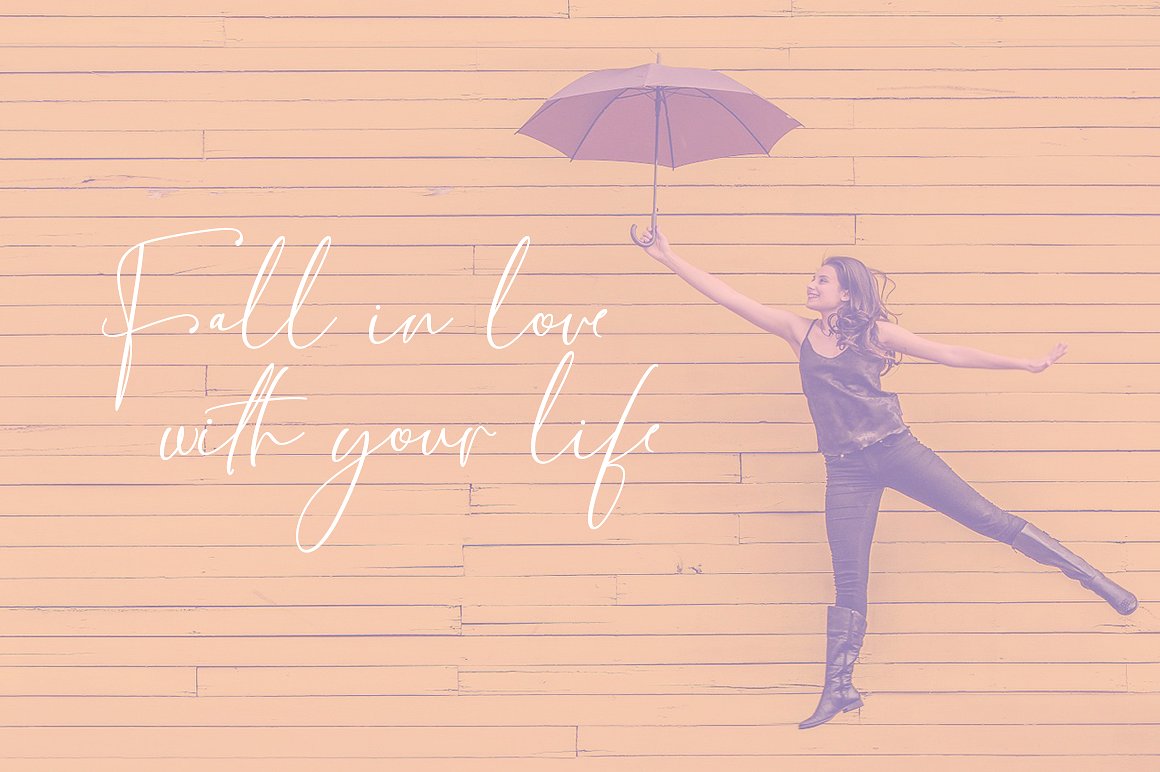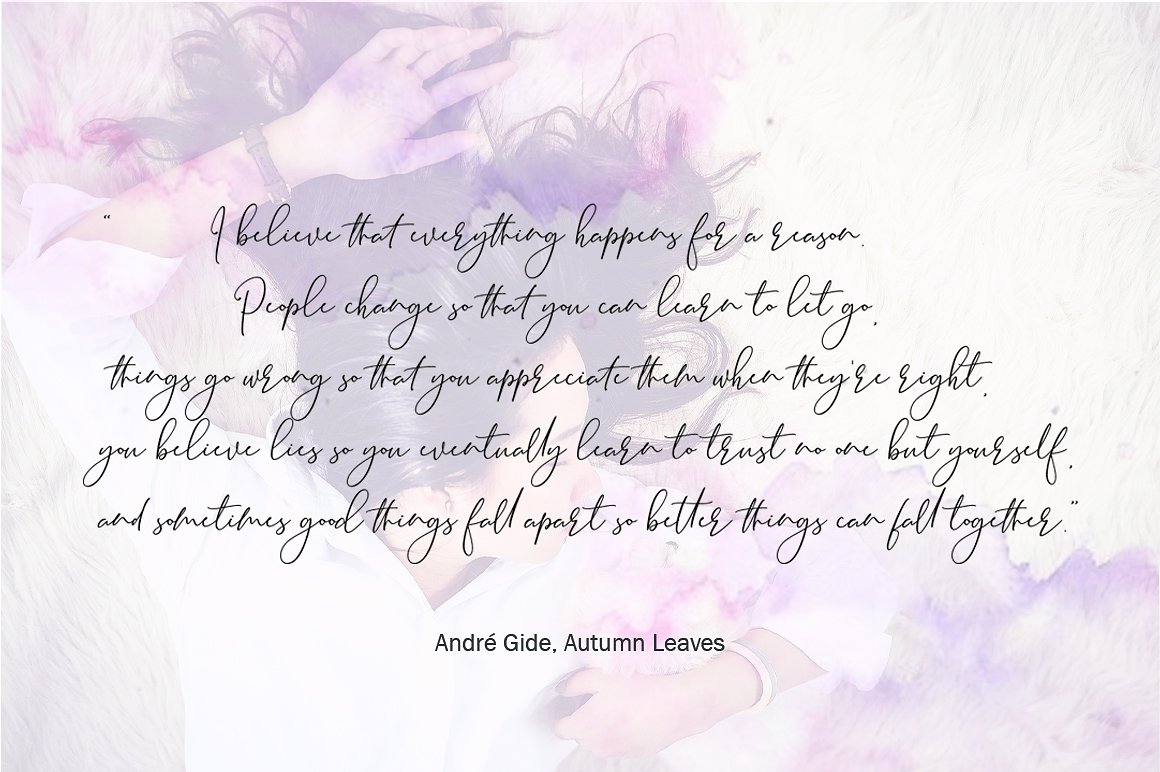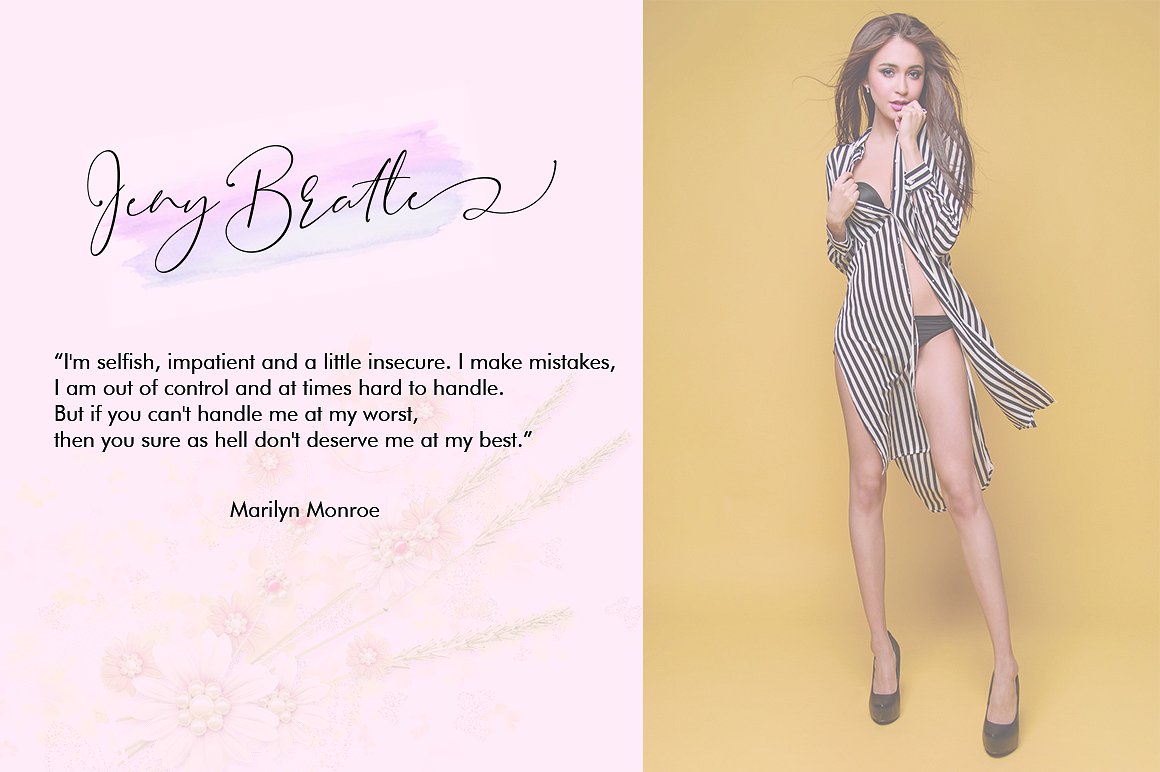
Brooke Smith Script Font
This handwritten font is ideal for branding and decorate your any project. Introducing Brooke Smith. It is designed and shared by mightype. Brooke Smith is a modern calligraphy font with the current handwriting style, this font is perfect for branding, wedding invites, magazines, mugs, business cards, quotes, posters, and more, you can try first if you want to buy this font.